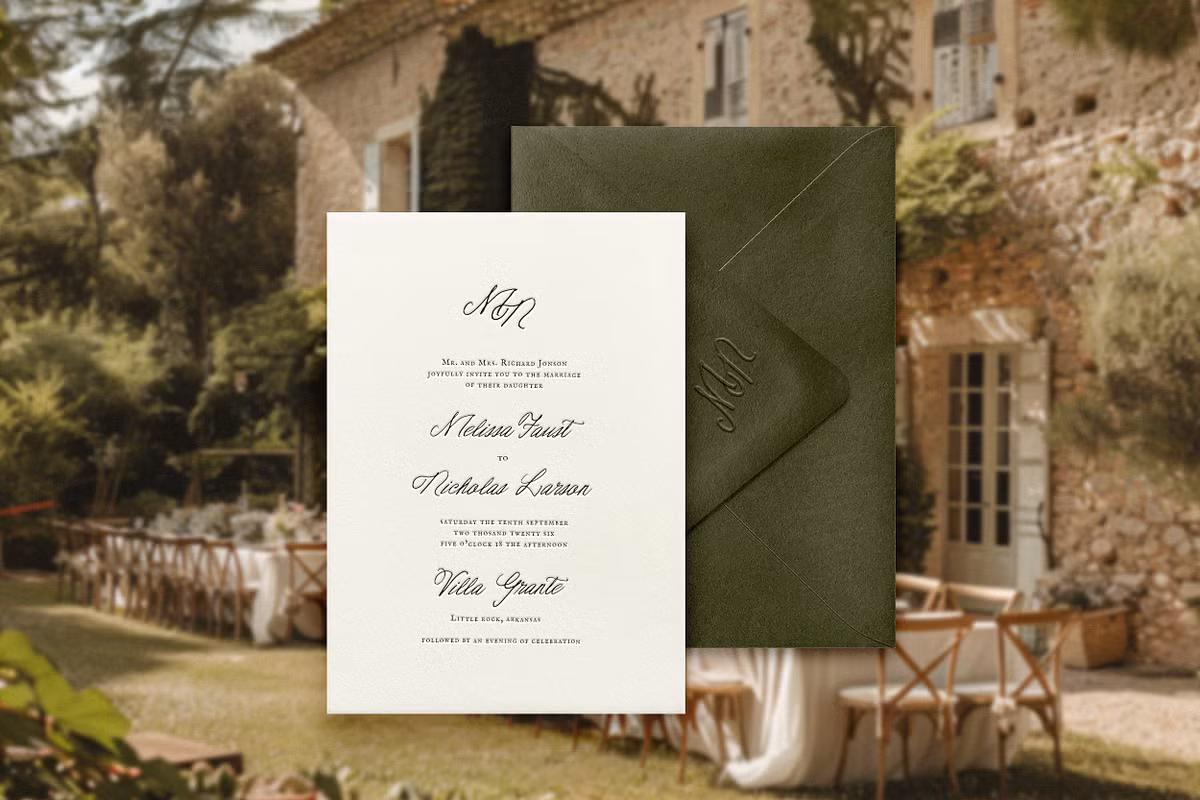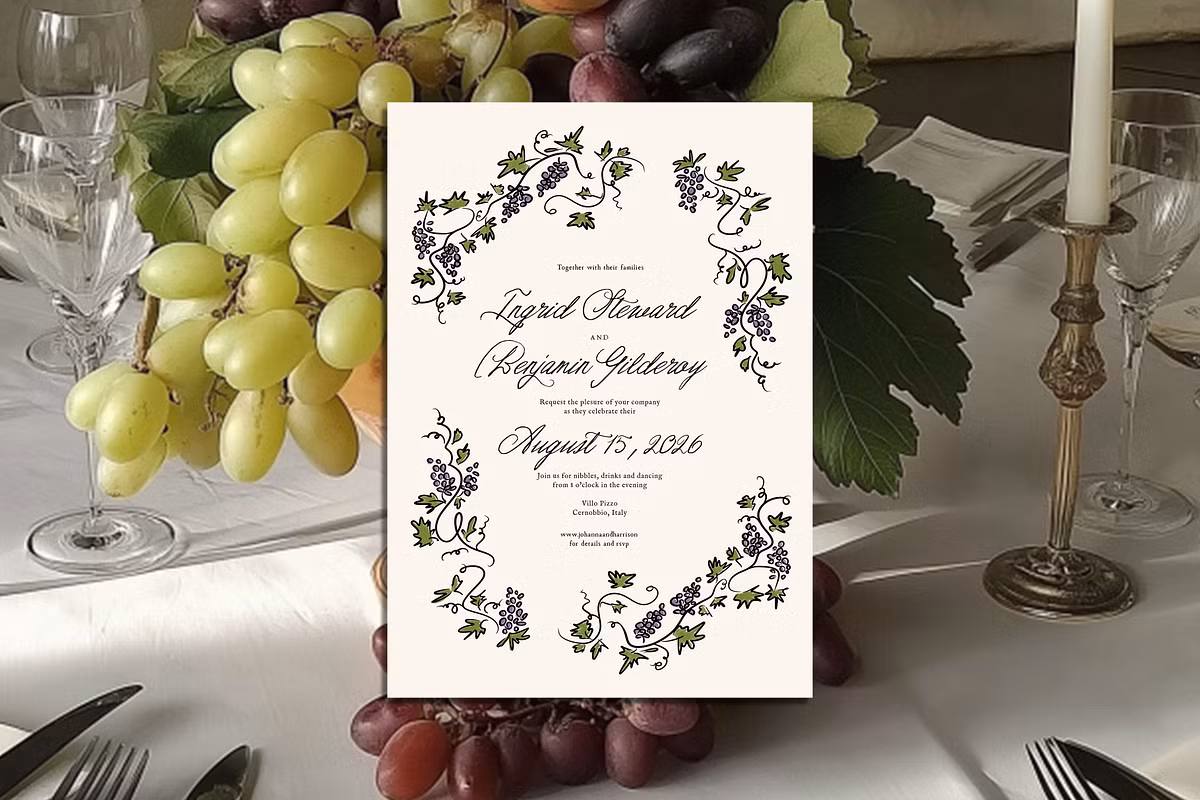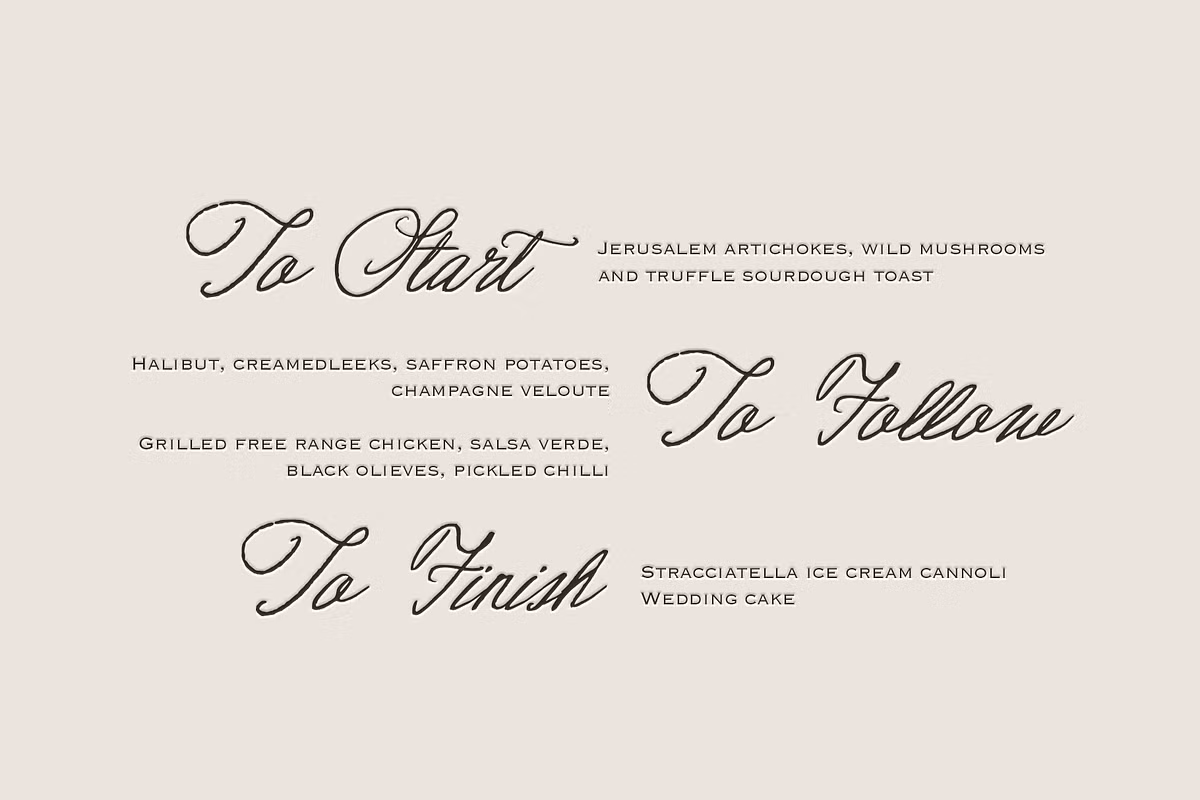
Maison Sezanne: Elegant Handwritten Script Font for Timeless Design
Maison Sezanne | Handwritten Font
Introduction to Maison Sezanne
Maison Sezanne is a beautiful, handwritten script font that captures the classic style of European calligraphy. It’s more than just a font – it’s a way to make your writing look elegant and sophisticated. The flowing lines, curved shapes, and natural flow of the letters give your designs a warm, authentic feel.
You can use Maison Sezanne to create stunning invitations, logos, or editorial designs that look luxurious and high-end. This font has a timeless quality that will make your work stand out and leave a lasting impression.
Example of Maison Sezanne font in use
Maison Sezanne font in elegant design applications.
With its delicate curves and refined lines, Maison Sezanne is the perfect choice for anyone who wants to add a touch of sophistication to their designs. Whether you’re working on a special project or just want to elevate your everyday writing, this font is sure to impress.
Its natural rhythm and flowing strokes make it a joy to read and look at, and its versatility makes it perfect for a wide range of design applications.
Design Style of Maison Sezanne
Maison Sezanne has a really beautiful, flowing style that’s typical of high-quality script fonts. It’s clear that the design is inspired by traditional calligraphy, but it’s still easy to read and understand.
The lines are elegant and expressive, which makes the font perfect for all sorts of projects. Because the font has a natural, organic feel to it, it can add a personal touch to your work, making it great for things that are meant to connect with people on an emotional level.
Stylish design showcasing Maison Sezanne font
A stylish design example featuring Maison Sezanne font.
The way it’s designed makes it feel inviting and creative, which is really useful for making a good impression. Overall, Maison Sezanne is a great choice when you want a font that’s both beautiful and effective.
Key Features
• The way the letters flow together in this font makes it easy to read and really brings out the charm of handwritten writing.
• The design of the letters is really careful, making sure they look great but are still easy to read.
• The way the font is designed has a rhythm to it that’s similar to how people naturally write by hand. This makes the font feel more personal and interesting to look at.
Character Sets and Language Support
Maison Sezanne has a wide range of characters, including capital and small letters, numbers, and different punctuation marks. This means you can create designs that look consistent and put together, without worrying about the text looking different.
The font also works with many languages, so you can reach more people and still have a stylish look.
Character sets of Maison Sezanne font
Character sets showcasing the versatility of Maison Sezanne.
Use Cases for Maison Sezanne
Maison Sezanne is really versatile, making it great for lots of different design projects. Here are some examples of how you can use it:
• Wedding Stationery: The font’s elegant style is perfect for invitations, save-the-dates, and thank-you cards, creating a romantic and personal feel.
• Editorial Design: Whether for magazines or blogs, Maison Sezanne can elevate headings and quotes, providing a sophisticated touch.
• Logo Design: This font is special and can make a logo stand out. It adds a personal touch that shows the brand cares about quality and doing things right.
• Restaurant Menus: Add a luxurious feel to your menus that reflects the ambiance of your establishment.
• Greeting Cards: Perfect for any occasion, the font adds a heartfelt touch to birthday cards, holidays, and special events.
• Fashion, Beauty & Lifestyle Projects: Use this font to communicate elegance and style in your marketing materials.
Pairing Suggestions for Maison Sezanne
To maximize the impact of Maison Sezanne, consider pairing it with clean serif or minimalist sans-serif fonts. Here are some pairing suggestions:
• Serif Fonts: Pairing with a classic serif typeface like Garamond or Playfair Display can create a beautiful contrast that emphasizes the handwritten elegance of Maison Sezanne.
• Sans-Serif Fonts: Combining it with a modern sans-serif like Helvetica or Montserrat can balance the organic feel of the script with a clean, contemporary aesthetic.
• Display Fonts: For titles and headlines, consider using bold display fonts as accents. This can create a striking visual hierarchy that draws attention to key elements of your design.